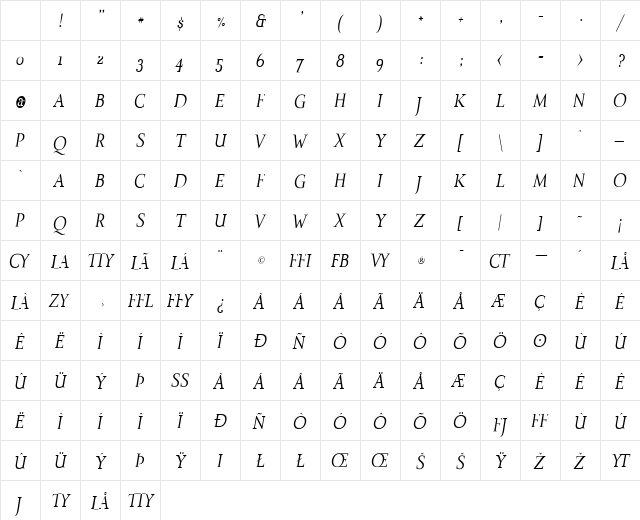
IndisposeTitling Medium Italic Free Font
IndisposeTitling Medium Italic
IndisposeTitling Family
Complete IndisposeTitling Medium Italic glyph index. Displaying only characters natively supported by IndisposeTitling Medium Italic font.
Design Context for IndisposeTitling
IndisposeTitling is a composed and adaptable typeface that performs quietly and consistently across a wide range of design contexts. The slanted form adds forward momentum and visual energy.